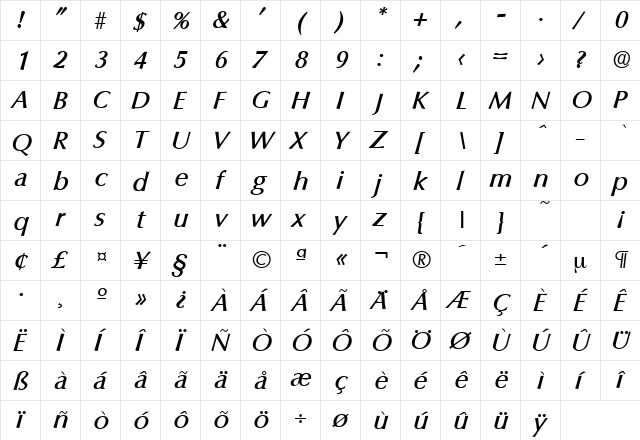
Columbia-Serial-Medium RegularItalic Font Preview
Columbia-Serial-Medium RegularItalic
Design Context for Columbia-Serial-Medium Typeface
Columbia-Serial-Medium is a composed and adaptable typeface that performs quietly and consistently across a wide range of design contexts. The slanted form adds forward momentum and visual energy.